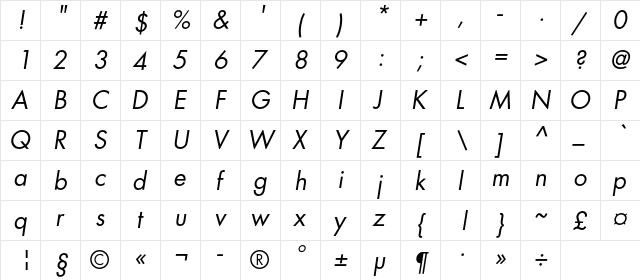
FavoritBookC Italic
Design Context for FavoritBookC Typeface
FavoritBookC offers clean, dependable letterforms without strong stylistic allegiance, making it a practical choice for designers who need flexibility. Its italic angle brings a sense of urgency and motion to the letterforms.
Pro Tip: Use FavoritBookC for emphasis, pull quotes, and subheadings where its slanted energy can add rhythm to the layout.